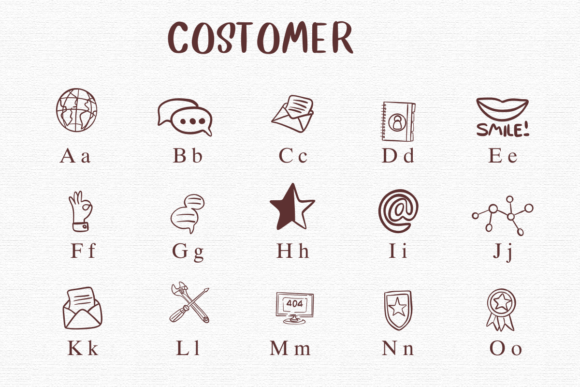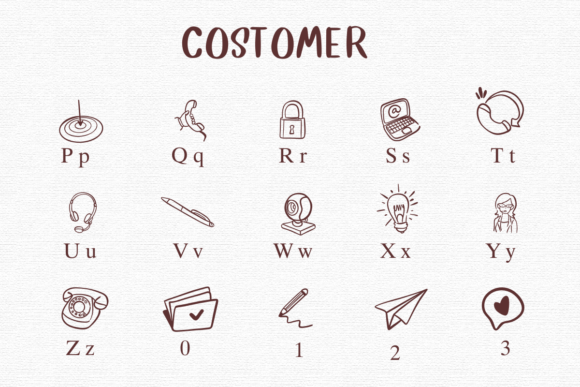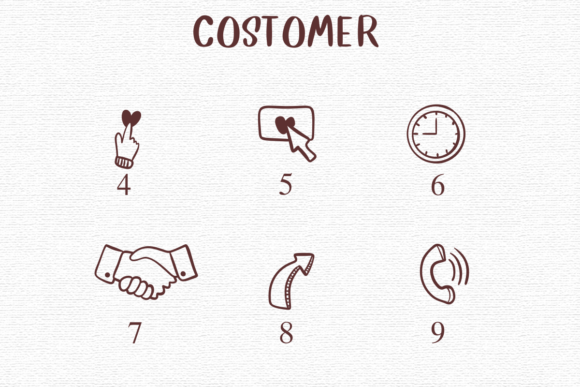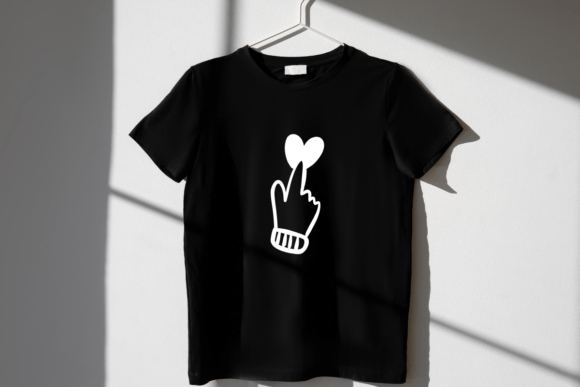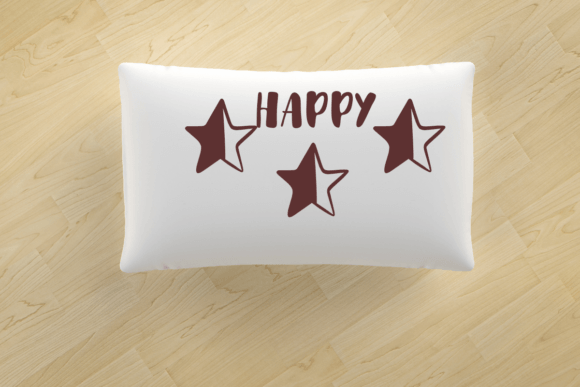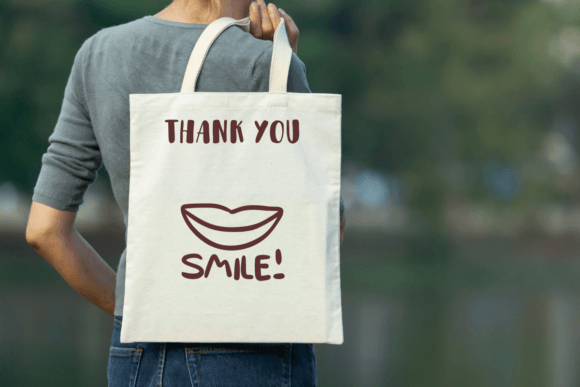
Introducing Costomer Font: Add a Playful Touch to Your Designs
Are you tired of using the same old fonts in your designs? Look no further than Costomer Font, a fun and playful dingbat font that’s sure to add a creative touch to your projects. Instead of letters, Costomer Font features cute pictures of different things like a clock, e-mail, and objects, making it perfect for designers and crafters who want to add a little whimsy to their work.
What is Costomer Font?
Costomer Font is a unique dingbat font that replaces traditional letters with images of everyday objects. This font is perfect for adding a playful and creative touch to your designs, whether you’re working on a graphic design project, crafting a handmade card, or creating a fun and quirky website.
Features of Costomer Font
- Cute and playful images: Costomer Font features a wide range of cute and playful images, including a clock, e-mail, and various objects.
- Perfect for creative projects: Whether you’re working on a graphic design project, crafting a handmade card, or creating a fun and quirky website, Costomer Font is the perfect choice.
Ideas for Using Costomer Font
Costomer Font is a versatile font that can be used in a variety of creative projects. Here are a few ideas to get you started:
- Handmade cards and invitations: Add a playful touch to your handmade cards and invitations with Costomer Font.
- Graphic design projects: Use Costomer Font to add a creative touch to your graphic design projects, such as brochures, flyers, and posters.
- Websites and blogs: Add a fun and quirky touch to your website or blog with Costomer Font.
- Crafting projects: Use Costomer Font to add a playful touch to your crafting projects, such as scrapbooking and journaling.
Benefits of Using Costomer Font
There are many benefits to using Costomer Font in your designs. Here are a few:
- Adds a creative touch: Costomer Font adds a creative and playful touch to your designs, making them stand out from the crowd.
- Versatile: Costomer Font can be used in a variety of creative projects, from graphic design to crafting.
Tips and Tricks for Using Costomer Font
Here are a few tips and tricks for using Costomer Font:
- Experiment with different sizes and colors: Experiment with different sizes and colors to find the perfect look for your design.
- Combine with other fonts: Combine Costomer Font with other fonts to create a unique and interesting look.
- Use sparingly: Use Costomer Font sparingly to add a touch of whimsy to your design without overwhelming it.
Costomer Font is a fun and playful dingbat font that’s perfect for adding a creative touch to your designs. With its cute and playful images, ease of use, and versatility, Costomer Font is a must-have for designers and crafters who want to add a little whimsy to their work. So why not give Costomer Font a try and see how it can add a playful touch to your next project?